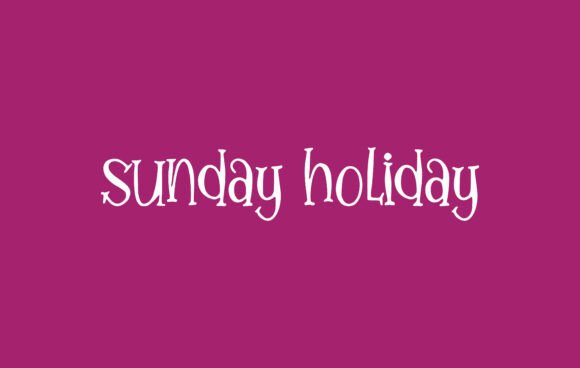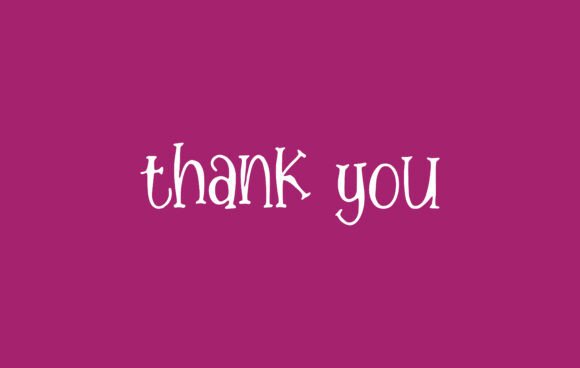
Introduction to Plumeria Font
Have you ever stumbled upon a design that perfectly captures the essence of a moment? For many of us, that moment is a romantic getaway or a beautiful wedding day. It’s the kind of moment that inspires creativity and sparks imagination. For designers, that spark often leads to a quest for the perfect font to bring their vision to life.
Enter the Plumeria Font, a stunning handwritten font that exudes a sense of elegance and sophistication. Expertly designed to be a true favorite among designers, this high-quality font is perfect for a wide range of creative projects, from magazine headlines and social media graphics to branding and wedding invitations.
Key Features of Plumeria Font
- High-quality, transparent background design ideal for creative projects and design resources.
- Unique, floral-inspired design that adds a touch of elegance to any project.
- Comes in a single style with multiple weights and sizes to suit various design needs.
- Designed to be versatile and easily scalable for use in a wide range of creative projects.
Honest Review: Plumeria Font
I recently had the chance to work with the Plumeria Font, and I must say it’s been a delightful experience. This free download has really impressed me with its high quality and versatility.
- ✨ High-quality glyphs and characters that make it perfect for any creative project
- ✨ Transparent background, allowing for seamless blending with any design element
- ✨ Easy to use and customize, making it a great design resource for beginners and professionals alike
Overall, I’m thoroughly impressed with the Plumeria Font. Its unique blend of elegance and playfulness makes it an excellent addition to any design project. If you’re looking for a high-quality font that’s easy to use and customize, I would definitely recommend giving the Plumeria Font a try.
Tips for Getting the Most Out of Plumeria Font
For the best results, use Plumeria Font in conjunction with a high-quality image or background. Experiment with different font sizes, colors, and styles to find the perfect combination for your design.
The Plumeria Font is perfect for a variety of creative projects, including wedding invitations, event branding, and product packaging. Its elegant and sophisticated design makes it an excellent choice for any project that requires a touch of class and sophistication.